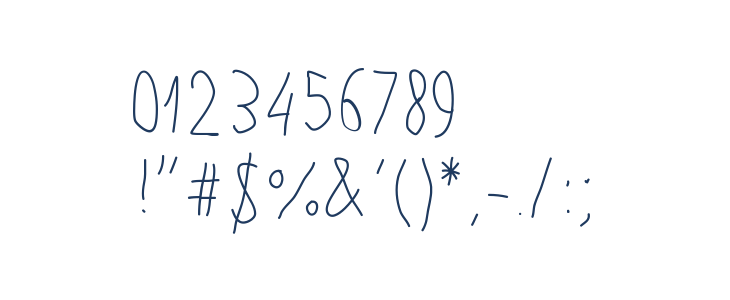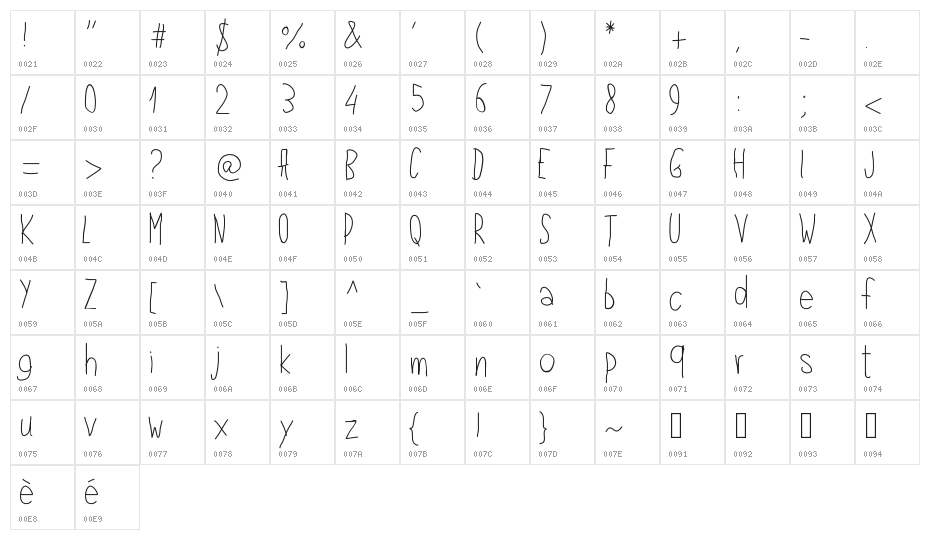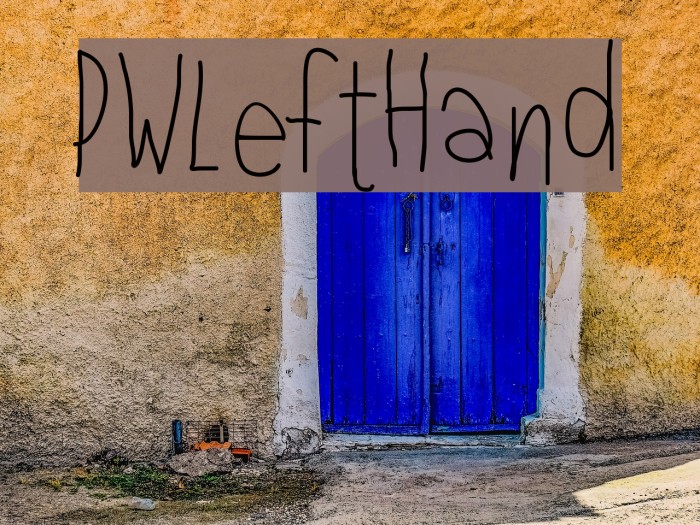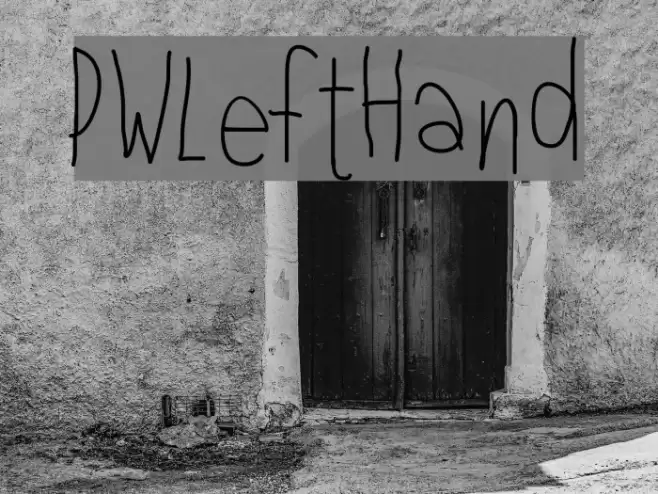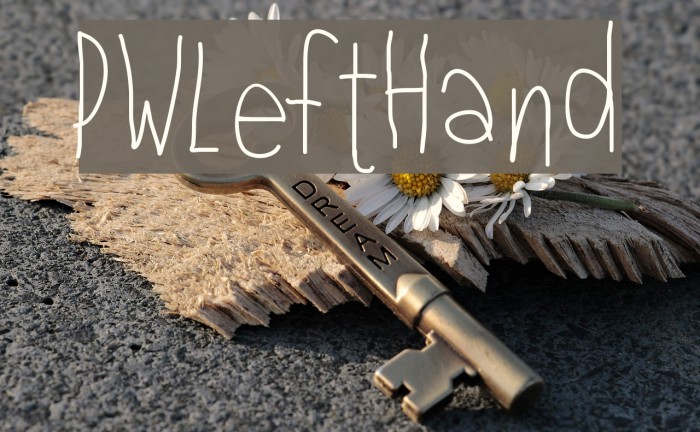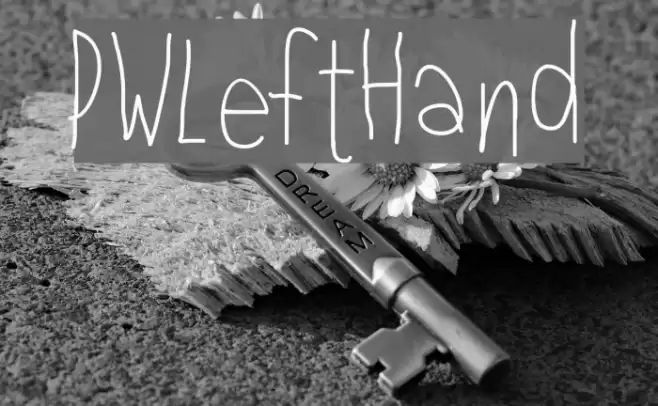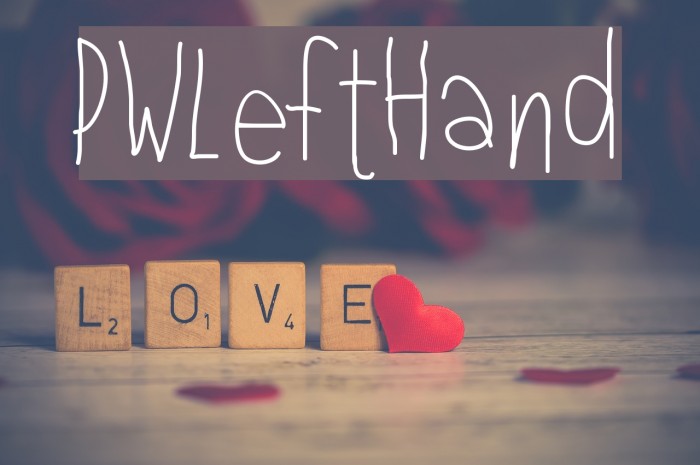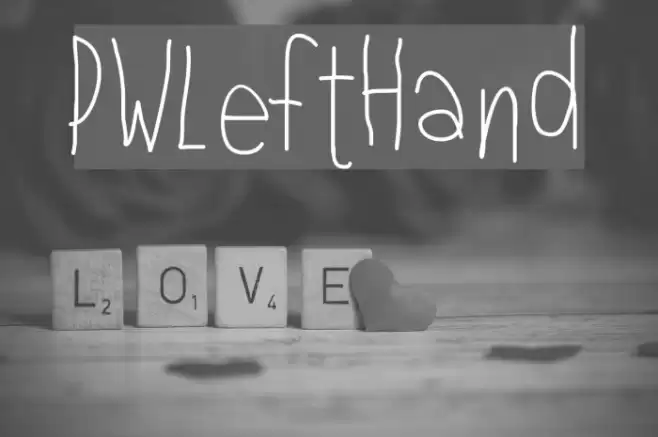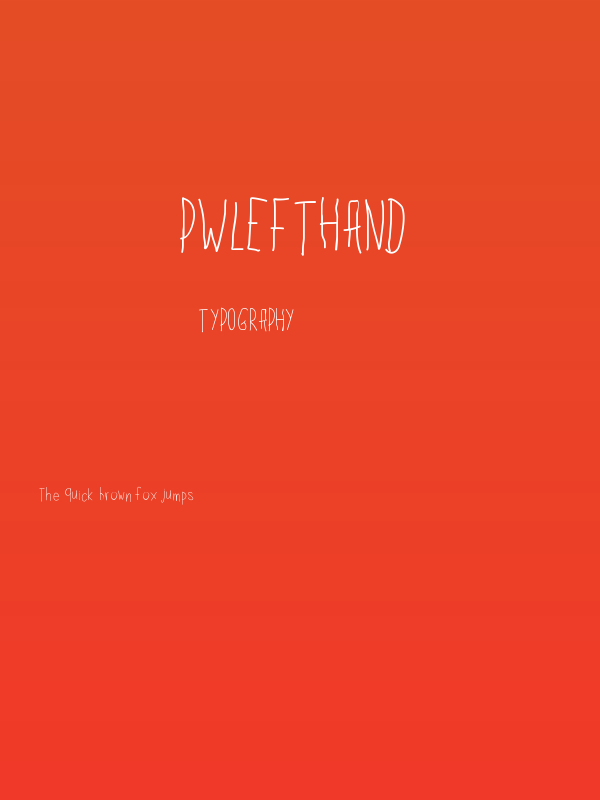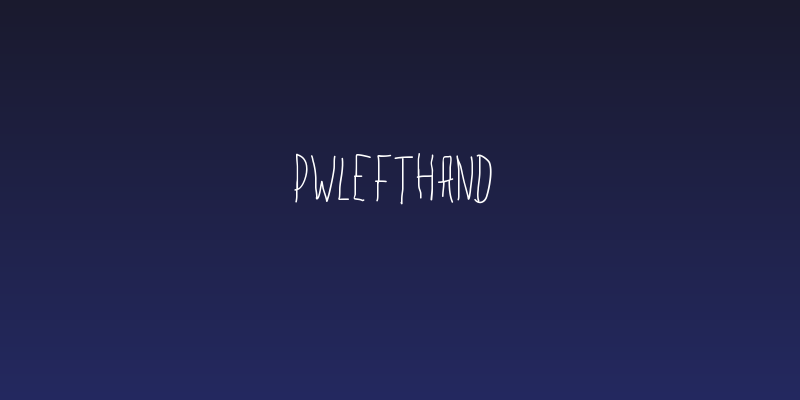
PWLeftHand Font
PWLeftHand Description
This font features a playful and informal handwritten style, characterized by its thin, uneven strokes and slightly irregular letterforms. The uppercase and lowercase letters maintain a consistent height, giving it a cohesive appearance despite its casual nature. The numerals and special characters follow the same whimsical design, making it suitable for creative and informal projects. Its unique charm lies in the hand-drawn feel, which adds a personal touch to any text. The font's simplicity and legibility make it versatile for various uses, from children's books to casual invitations.
| Proposed Projects | Ideal for children's books, casual invitations, greeting cards, and creative projects. |